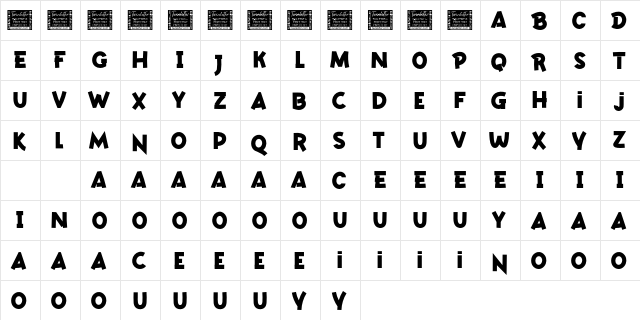
EMATANE Personal Use
Design Context for EMATANE Typeface
EMATANE is a composed and adaptable typeface that performs quietly and consistently across a wide range of design contexts.
Pro Tip: Pair EMATANE with a font of contrasting weight or personality to build a more expressive typographic hierarchy.